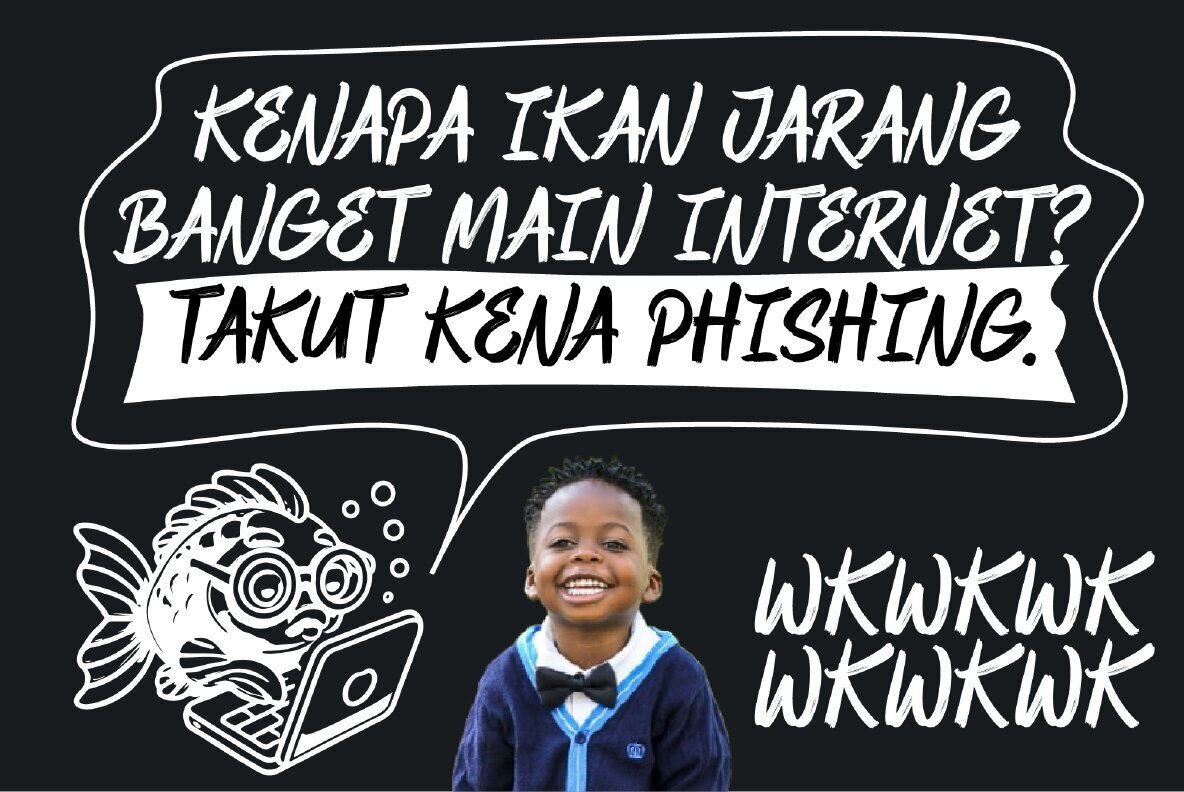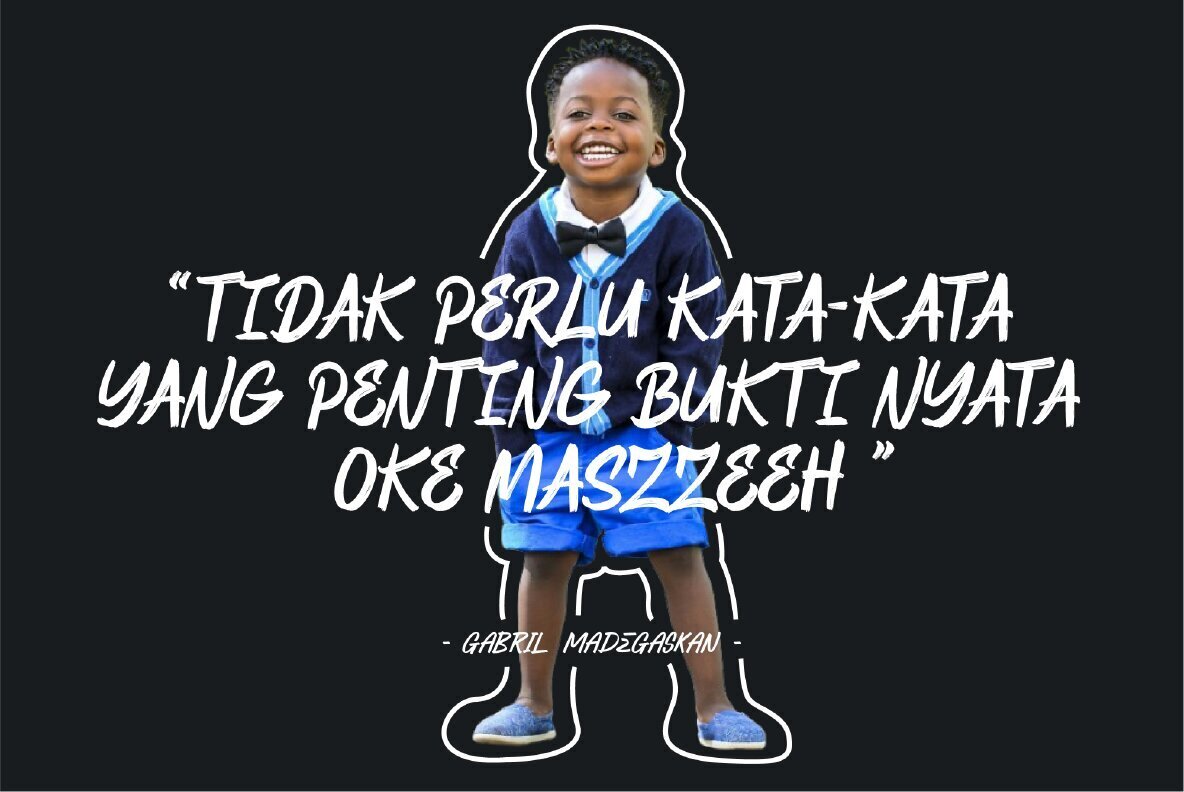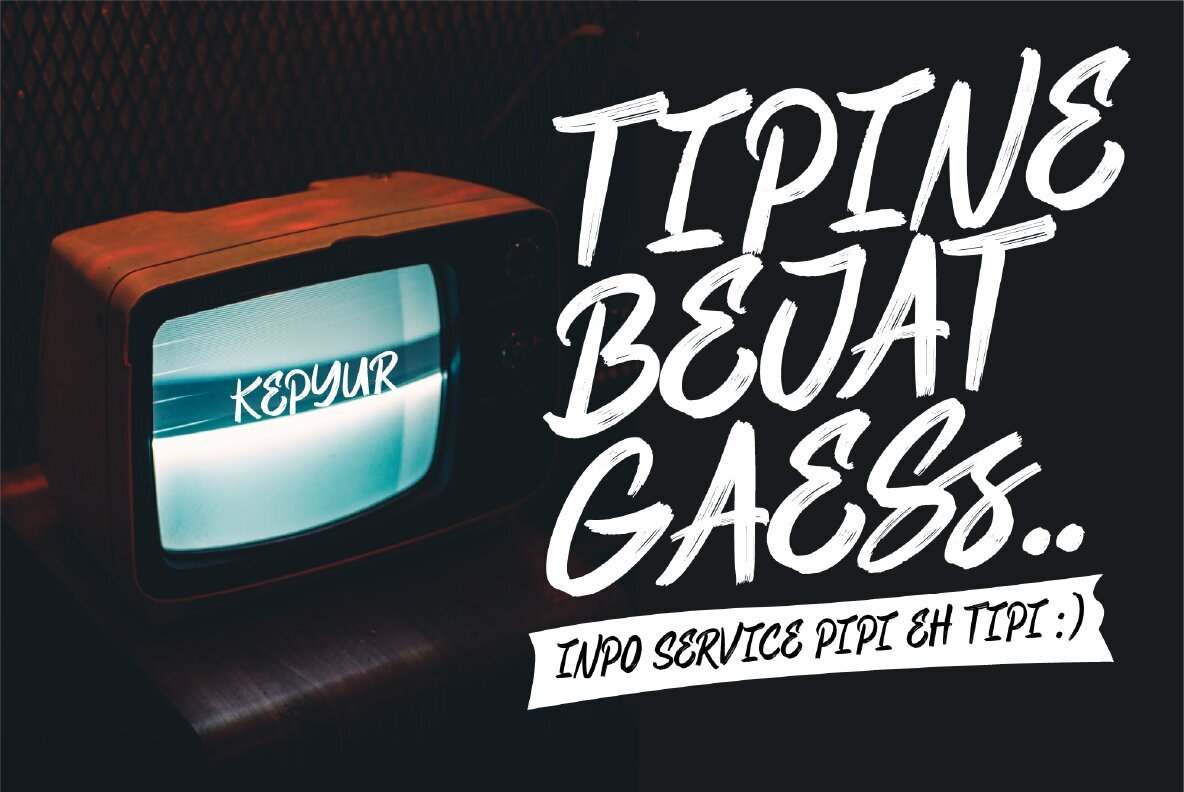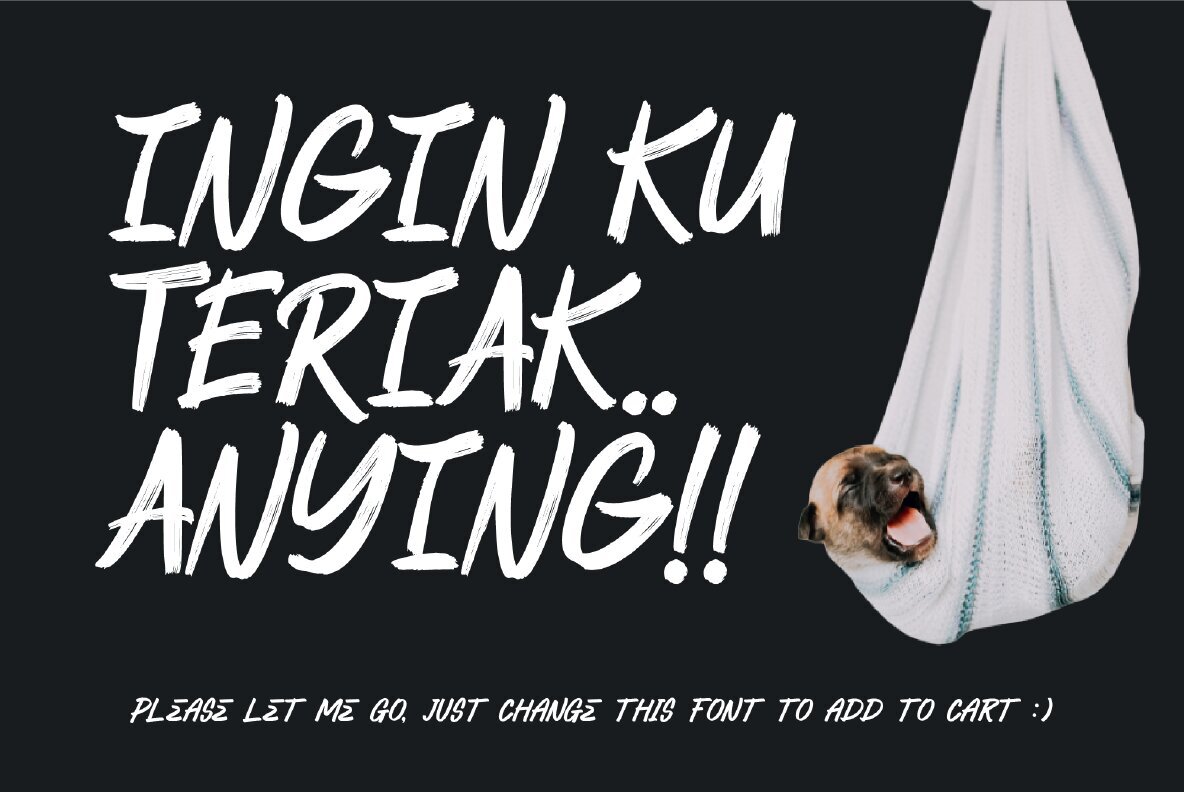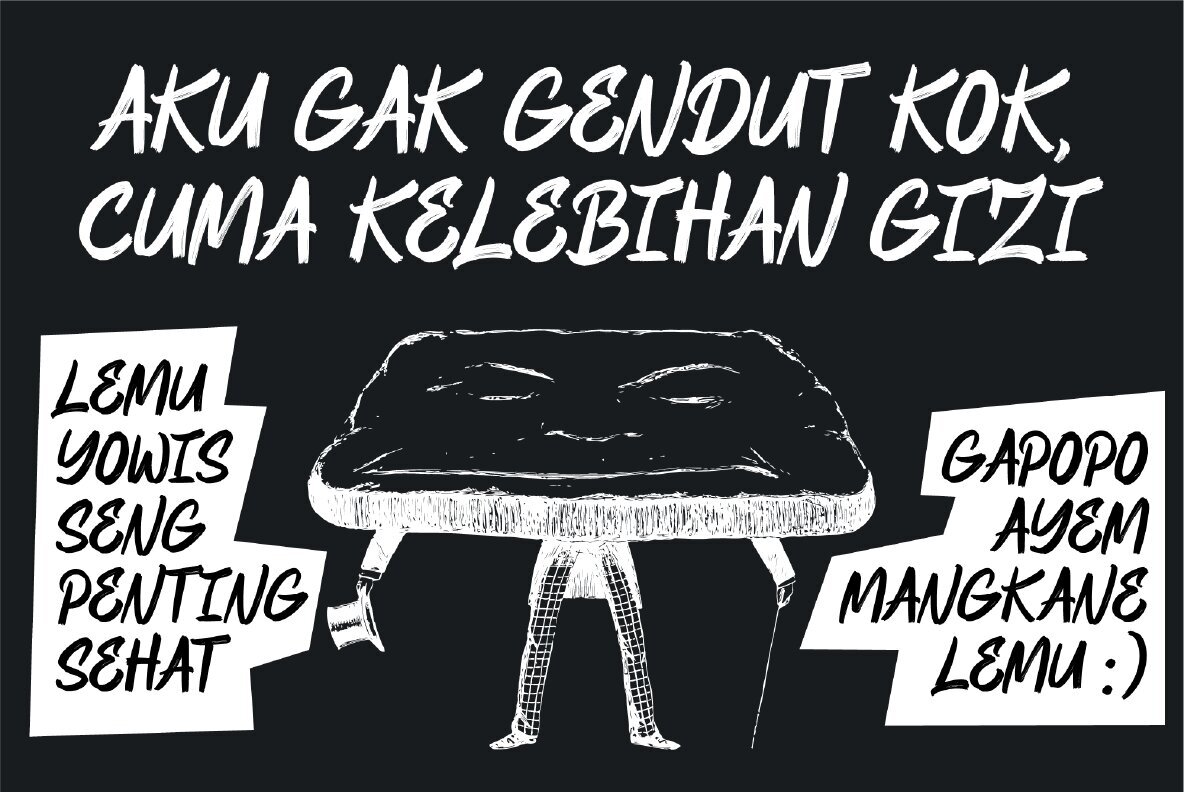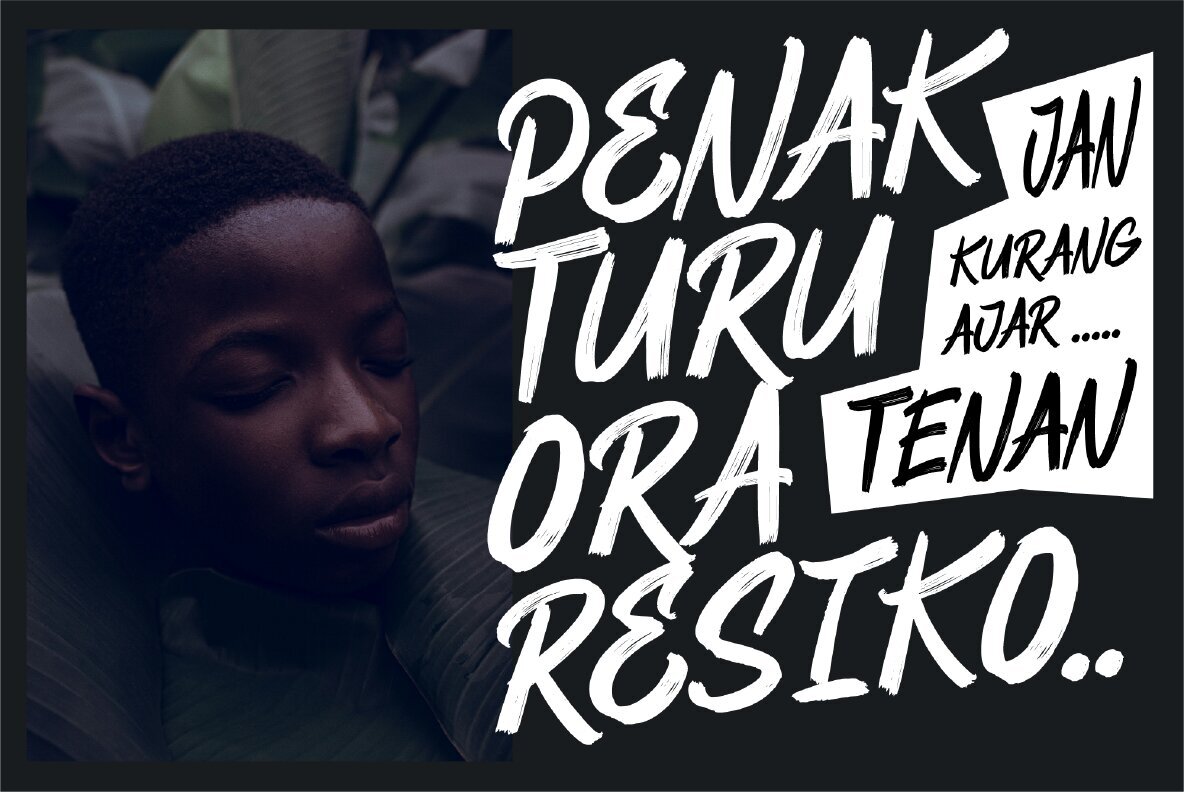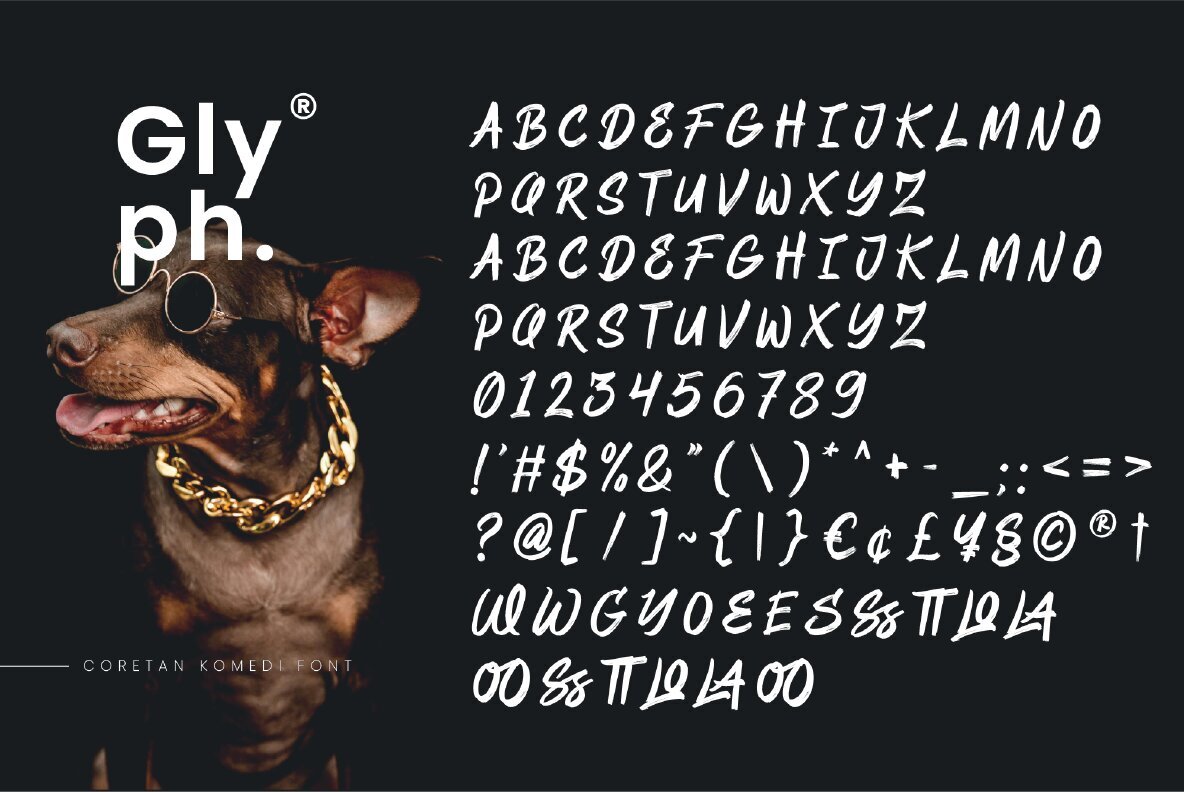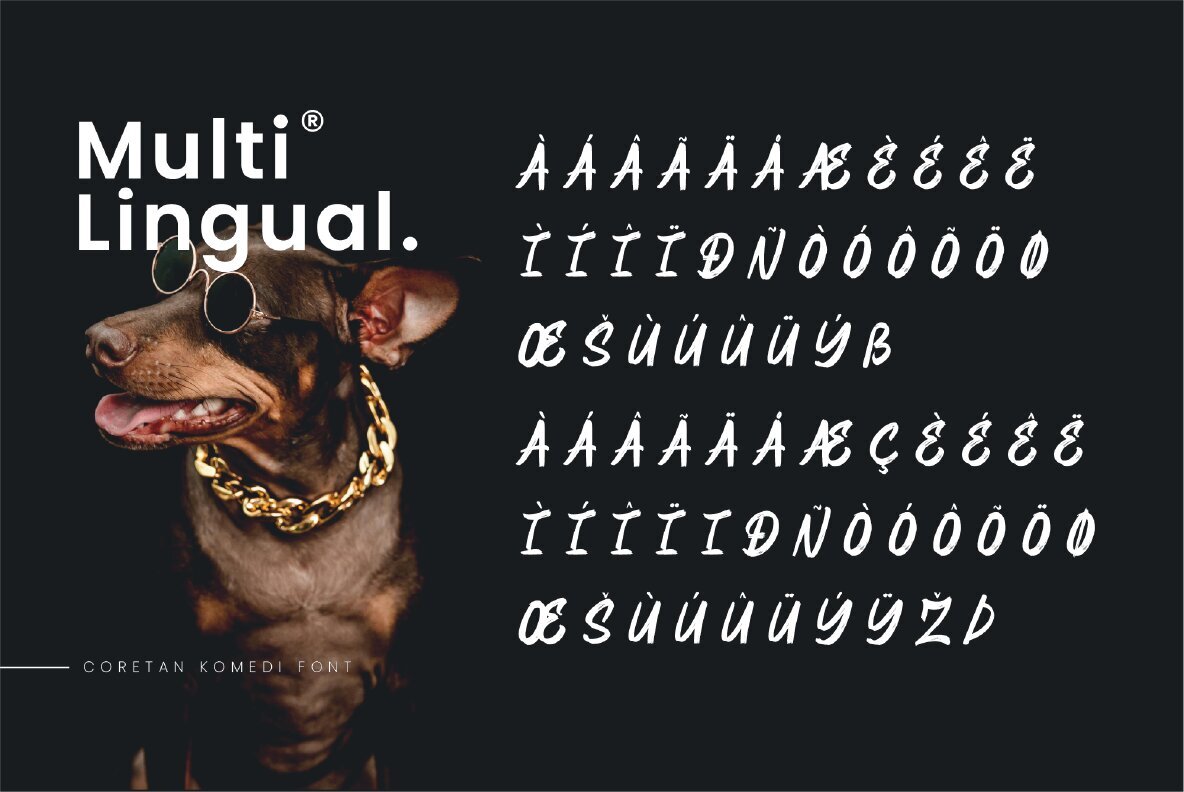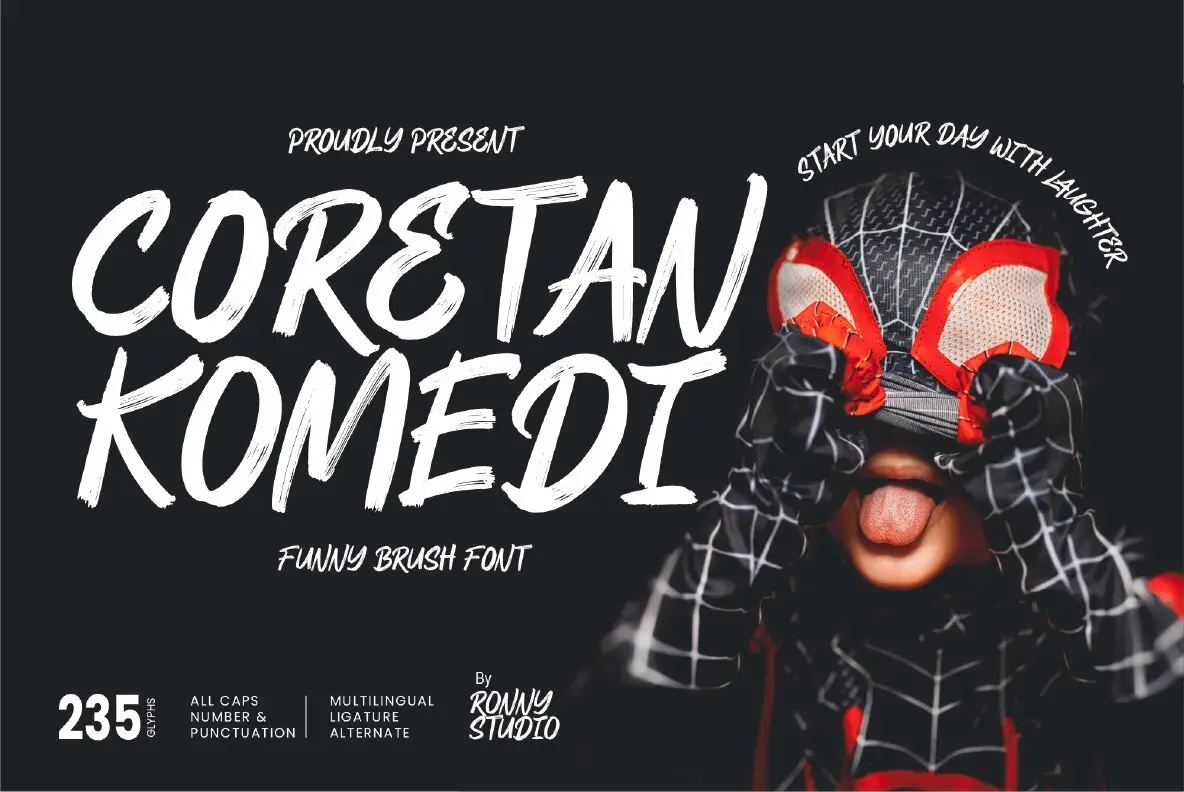
Coretan Komedi Font
Coretan Komedi
Coretan Komedi is a vibrant and dynamic brush font that injects humor and vitality into your creative projects. Featuring 235 glyphs, this all-caps typeface offers excellent multilingual support, along with a range of ligatures and alternates, making it an excellent choice for headlines, posters, and playful designs.
The font includes uppercase and lowercase all-cap variants, numbers, punctuation, and is PUA-encoded for ease of access to additional characters. Coretan Komedi is your ideal companion for crafting visually engaging and lively content.